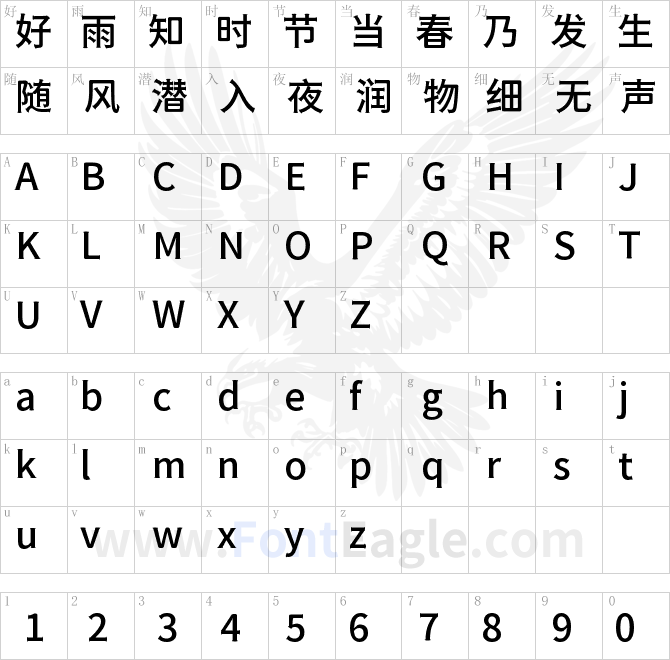
獅尾斧頭黑體SC-Medium is a great font, widely used in graphic design, single-page menu design, poster design and other fields, and is deeply loved by designers.獅尾斧頭黑體SC-Medium download.